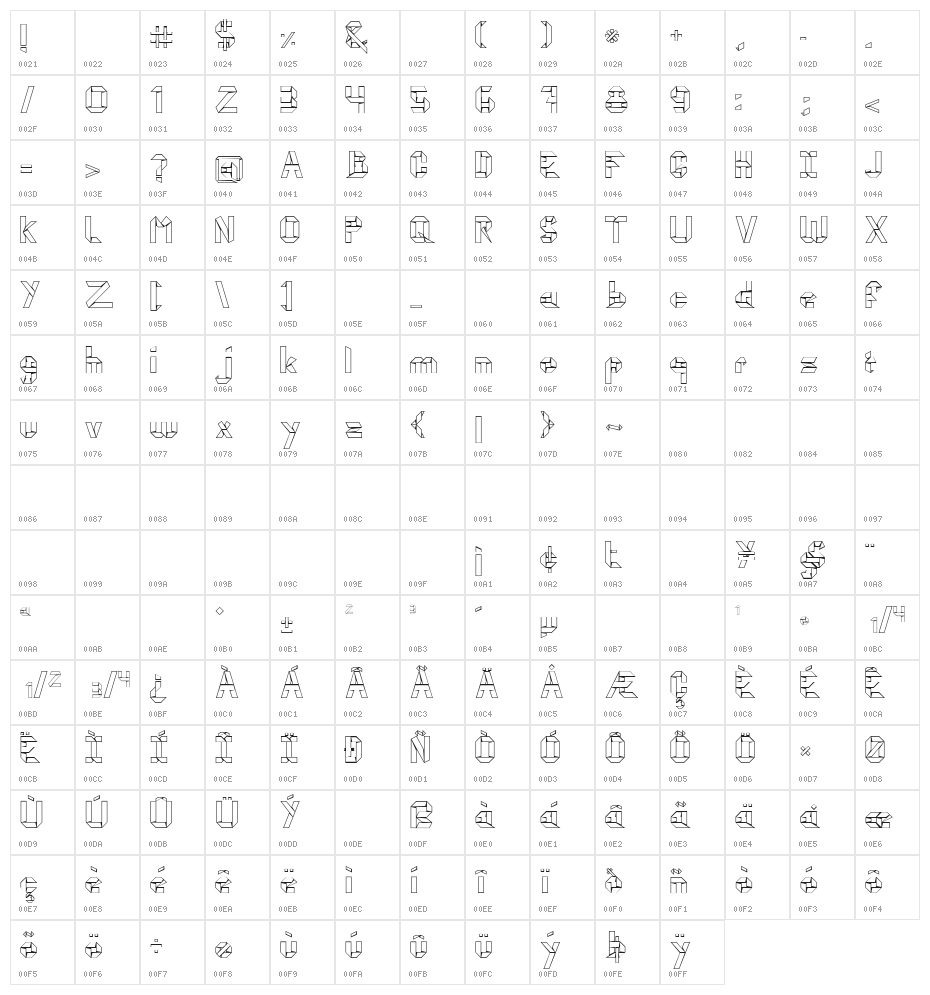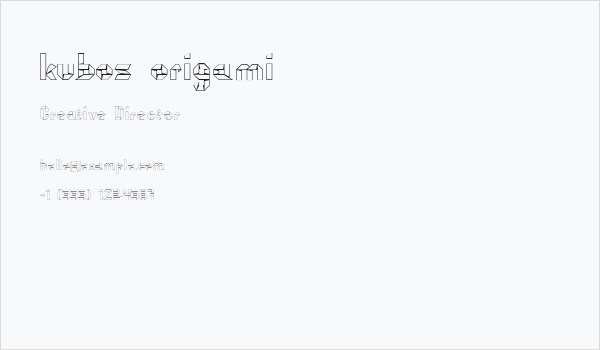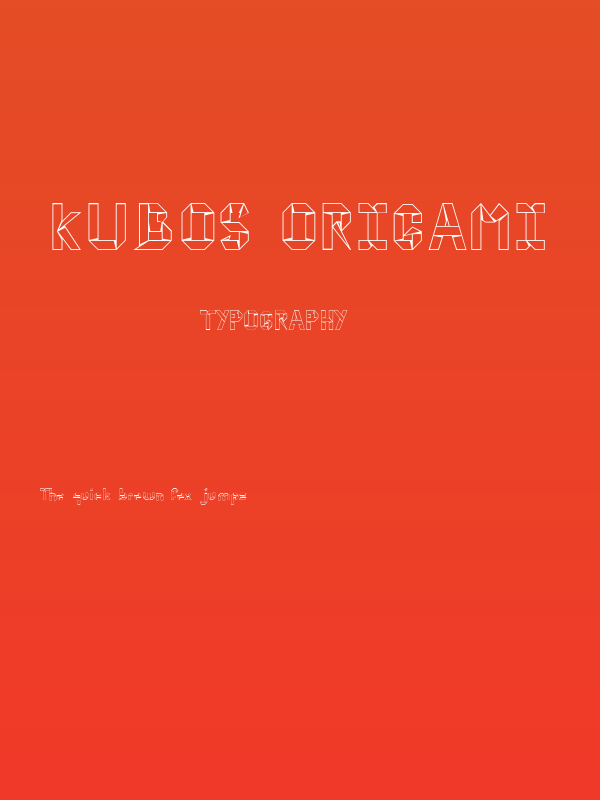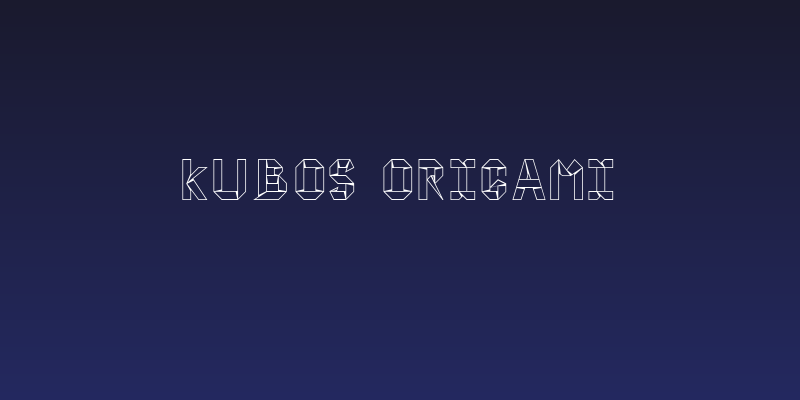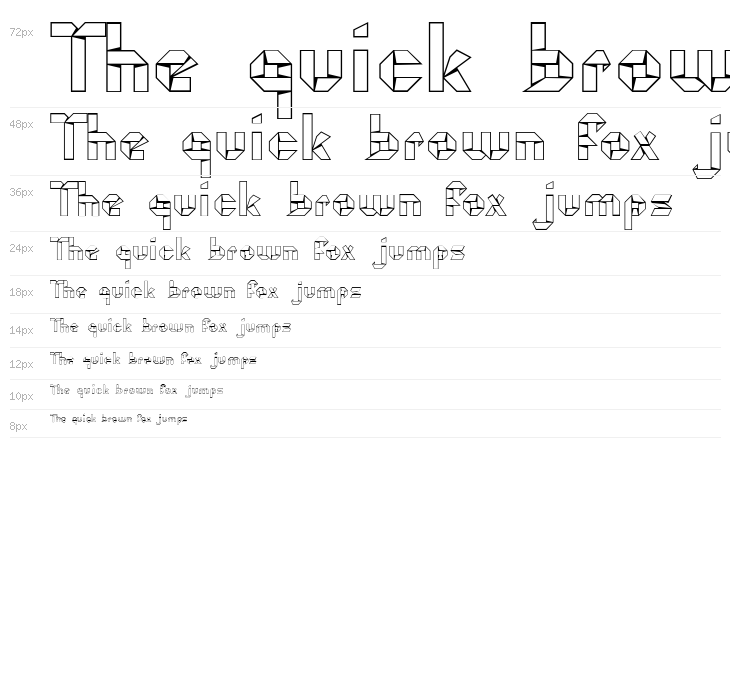
kubos origami Font
kubos origami Description
This font features a unique origami-inspired design, with each character resembling folded paper. The geometric shapes create a three-dimensional effect, giving the font a modern and artistic appearance. The uppercase and lowercase letters maintain a consistent style, with sharp angles and clean lines. Numbers and special characters are crafted with the same attention to detail, ensuring a cohesive look across all elements. The font's intricate design makes it ideal for projects that require a creative and eye-catching typeface.
KUBOS-ORIGAMI UPPERCASE
KUBOS-ORIGAMI LOWERCASE
KUBOS-ORIGAMI OTHER CHARS
| Overall Style | Modern, Artistic |
| Proposed Projects | Ideal for creative projects such as posters, branding, packaging, and digital art where a unique and artistic font is desired. |